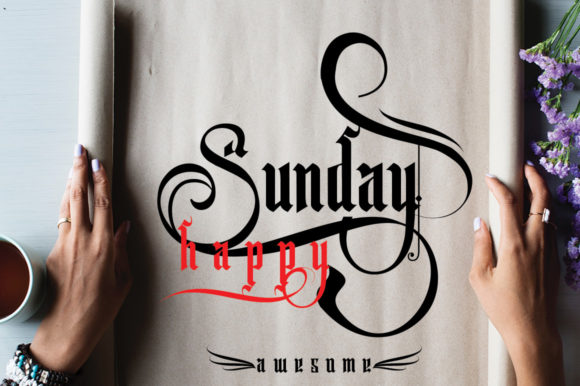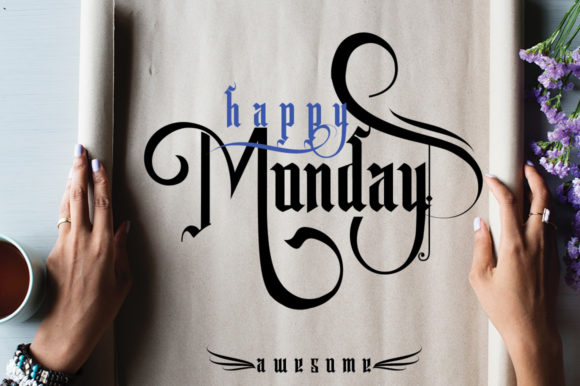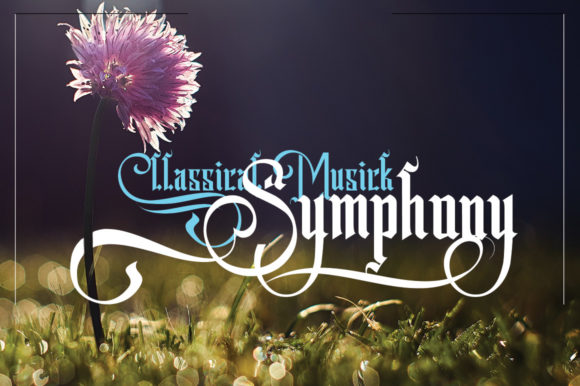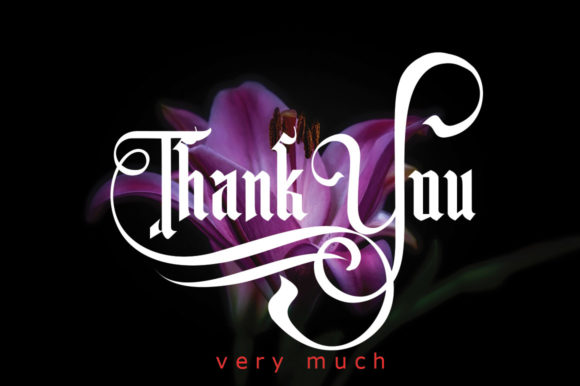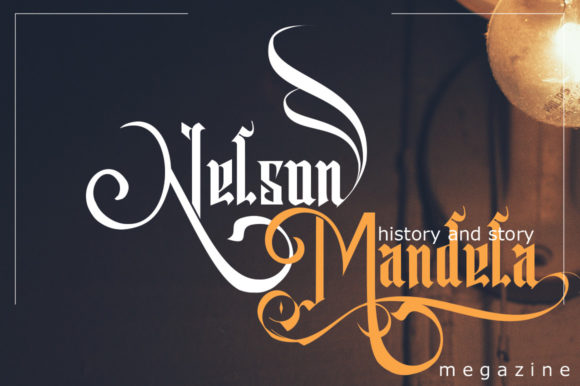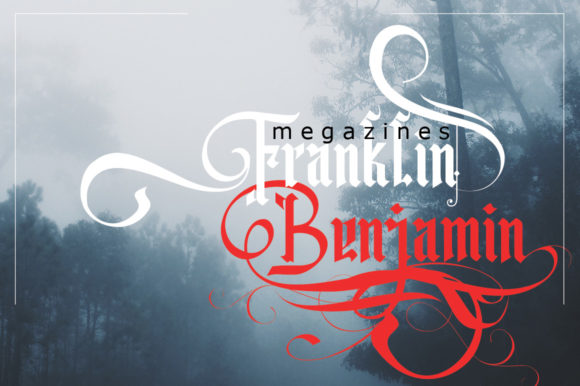
Arakunda Font: Elevate Your Designs with Luxurious Calligraphy
The Arakunda font is a stunning calligraphy font that has been making waves in the design community. Its elegant swashes and luxurious feel make it the perfect addition to any design project. Whether you’re a seasoned designer or a crafty DIY enthusiast, the Arakunda font is sure to take your creations to the next level.
The Beauty of Arakunda
The Arakunda font is a beautiful calligraphy font that boasts elegant swashes, giving it a truly luxurious feel. Its intricate details and flowing lines make it perfect for designs that require a touch of sophistication and elegance. The font’s unique characteristics make it stand out from other calligraphy fonts, making it a great choice for designers looking to add a personal touch to their work.
The Arakunda font is a versatile font that can be used in a variety of design projects. Whether you’re creating a logo, branding materials, or social media graphics, this font is sure to make a statement. Its elegant swashes and luxurious feel make it perfect for:
- Logos and wordmarks
Why Choose Arakunda?
So, why choose the Arakunda font for your design projects? Here are just a few reasons:
- Unique and elegant design: The Arakunda font has a unique and elegant design that will set your designs apart from the rest.
- Luxurious feel: The font’s elegant swashes give it a luxurious feel that’s perfect for high-end designs.
- Versatile: The Arakunda font can be used in a variety of design projects, from logos and branding materials to social media graphics and signage.
Tips for Using Arakunda
Here are a few tips for using the Arakunda font in your design projects:
- Use it sparingly: The Arakunda font is a statement font, so use it sparingly to make a big impact.
- Pair it with a simple font: Pair the Arakunda font with a simple font to create a beautiful contrast.
- Experiment with different colors: The Arakunda font looks great in a variety of colors, so experiment with different colors to find the perfect one for your design.
The Arakunda font is a beautiful calligraphy font that’s perfect for designers and crafters looking to add a touch of luxury to their designs. Its elegant swashes and unique design make it a great choice for a variety of design projects. Whether you’re creating wedding invitations, branding materials, or social media graphics, the Arakunda font is sure to make a statement. So why not give it a try and see the difference it can make in your designs?
In conclusion, the Arakunda font is a stunning calligraphy font that’s perfect for designers and crafters looking to elevate their designs. Its elegant swashes and luxurious feel make it a great choice for a variety of design projects. So why not give it a try and see the difference it can make in your designs?